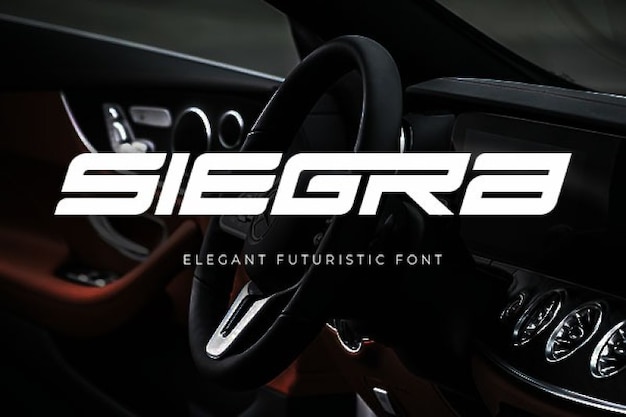
Siegra
Siegra Font
This intrepid Siegra font is all about neck breaking speed and adrenaline. This simple-looking but self-confident typeface adds a futuristic touch to your top-notch project. Its slanted angle, bold style and curved rounds stand for movement and determination. It's an all-caps font with distinct uppercase and lowercase letters. Download it from Freepik now!